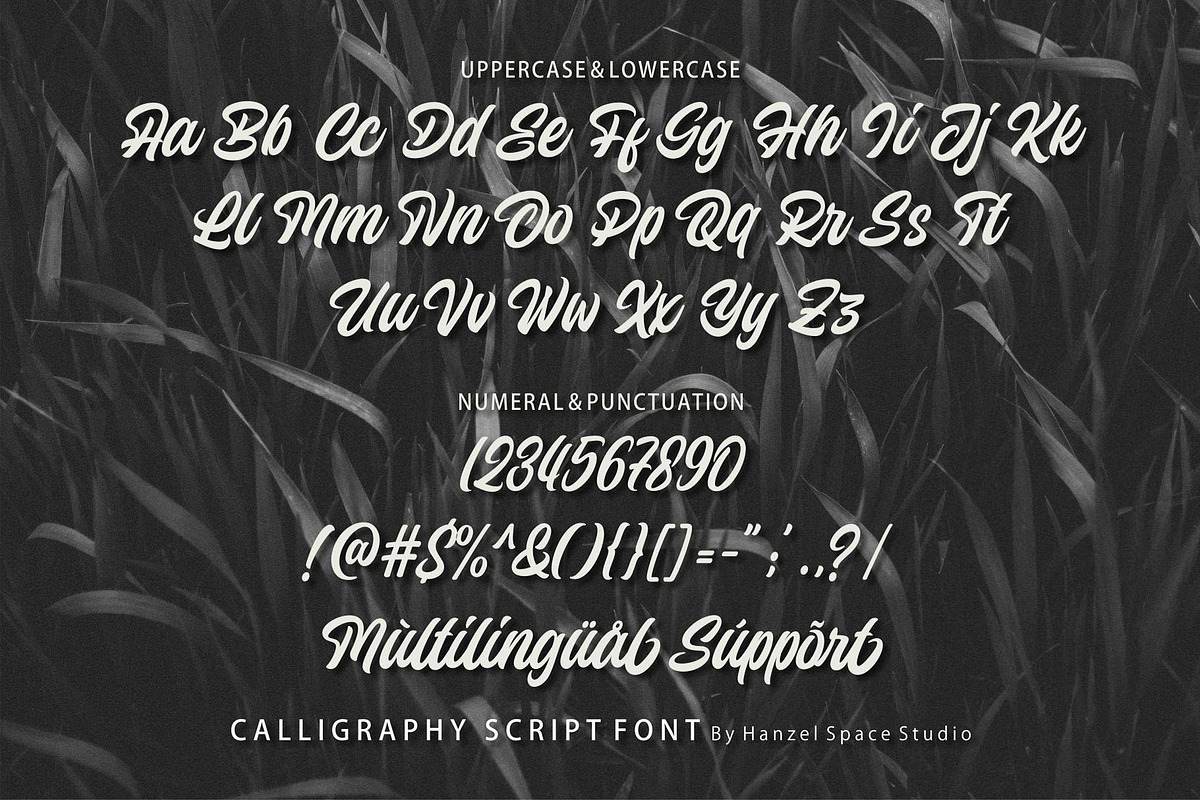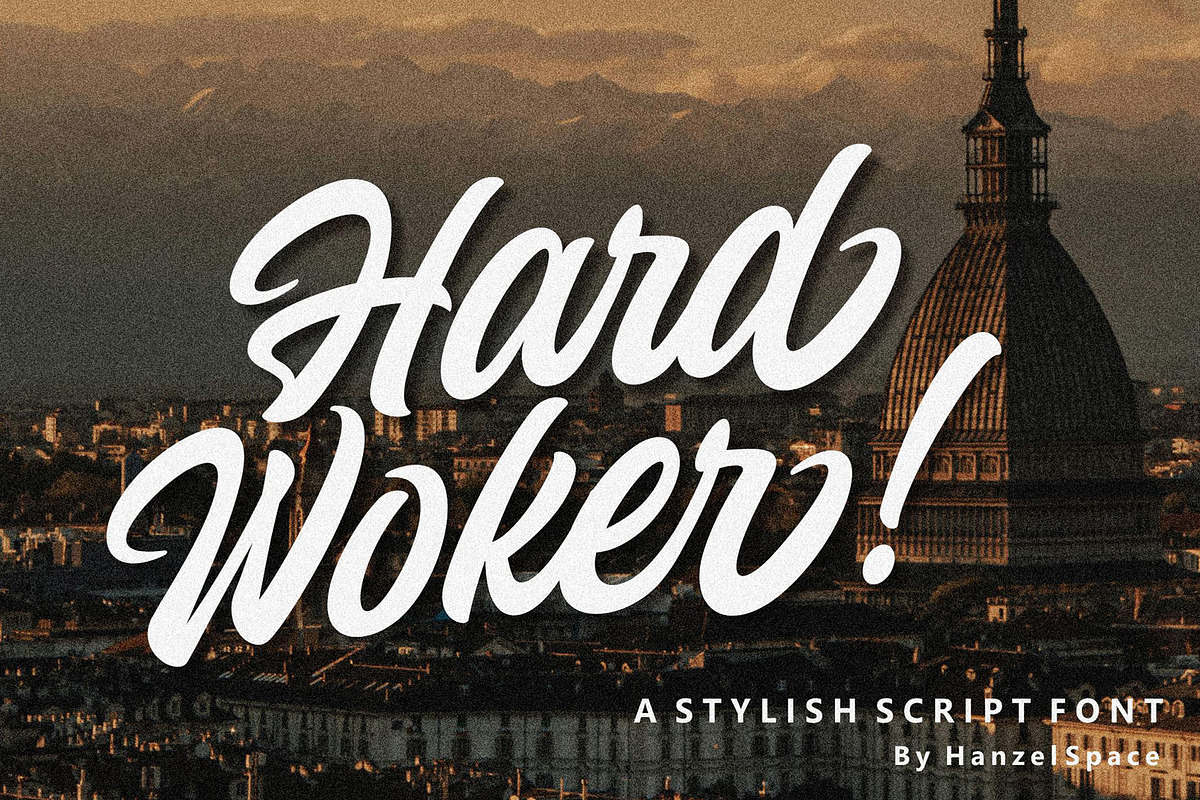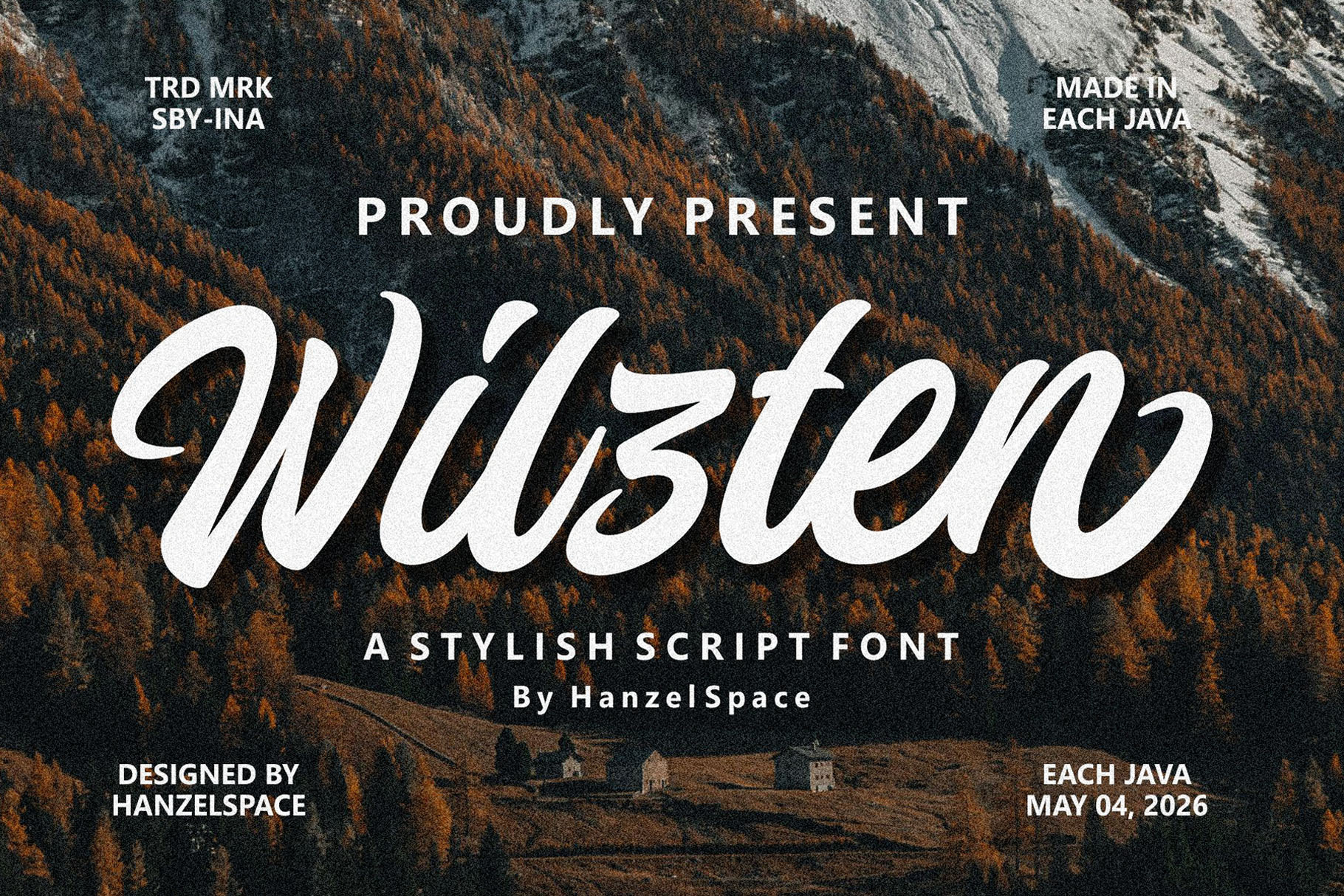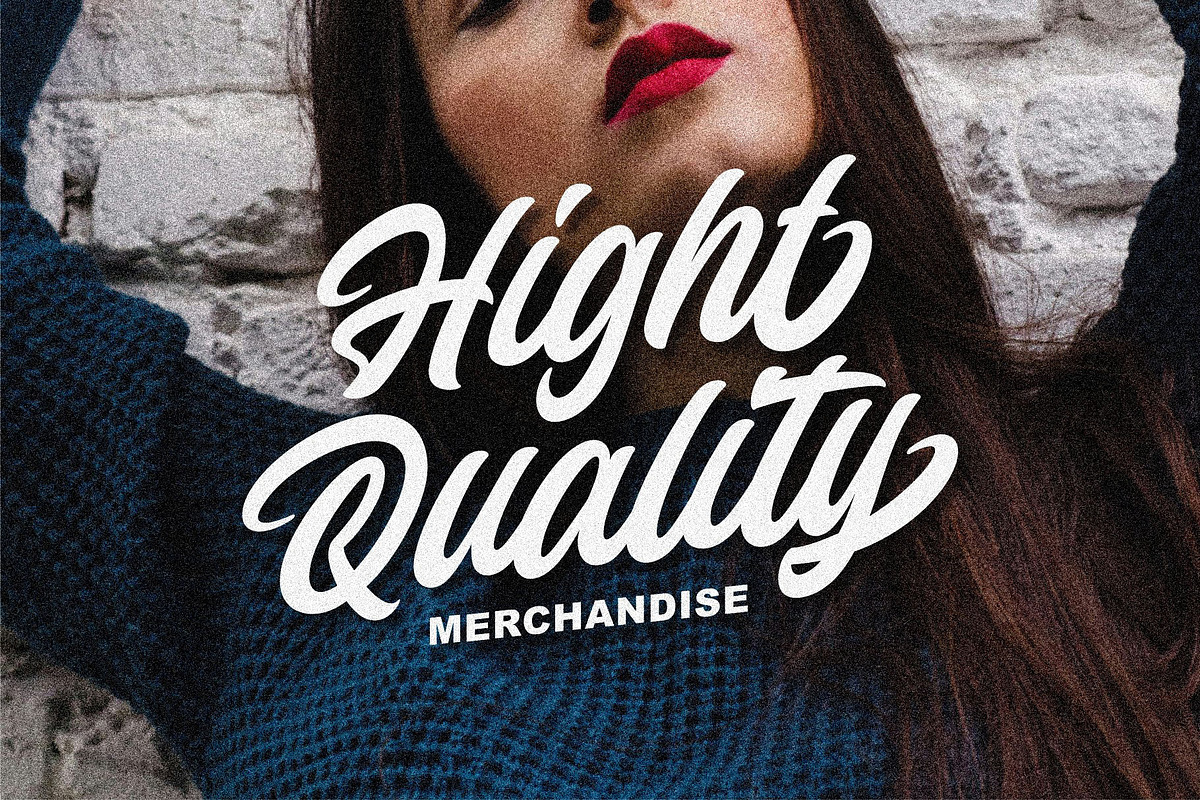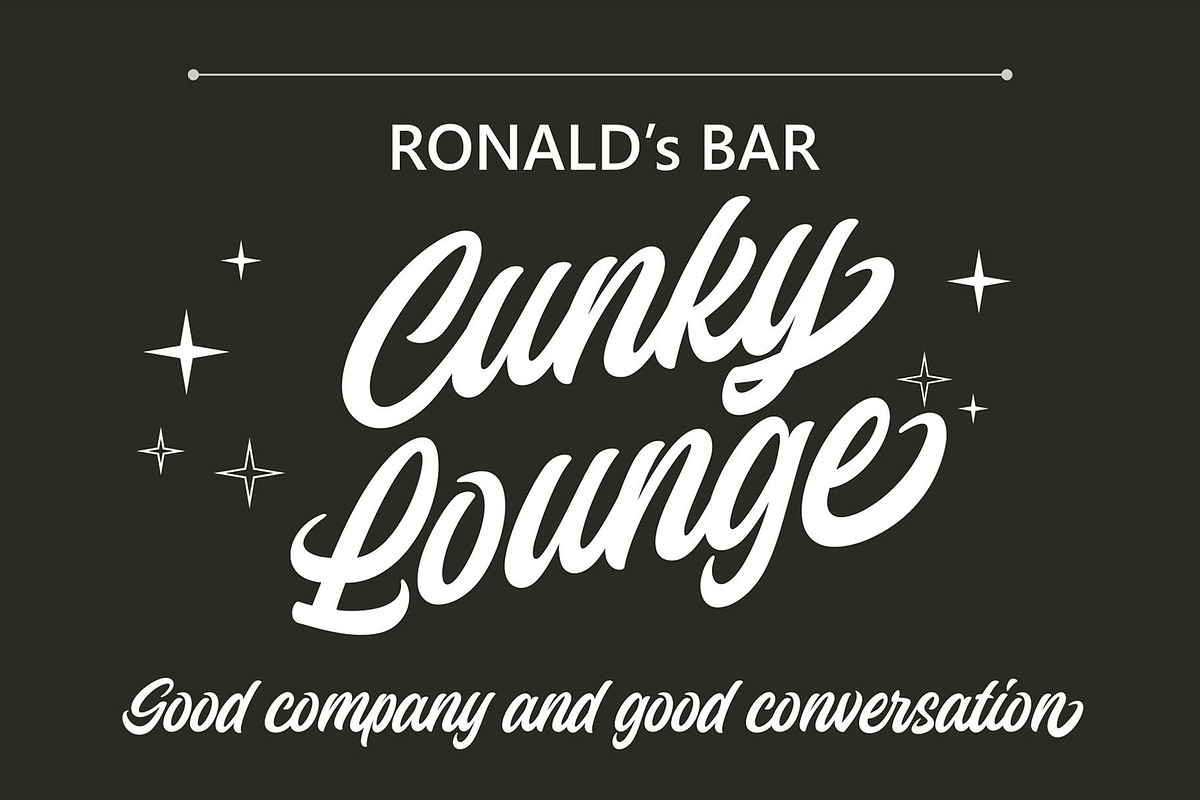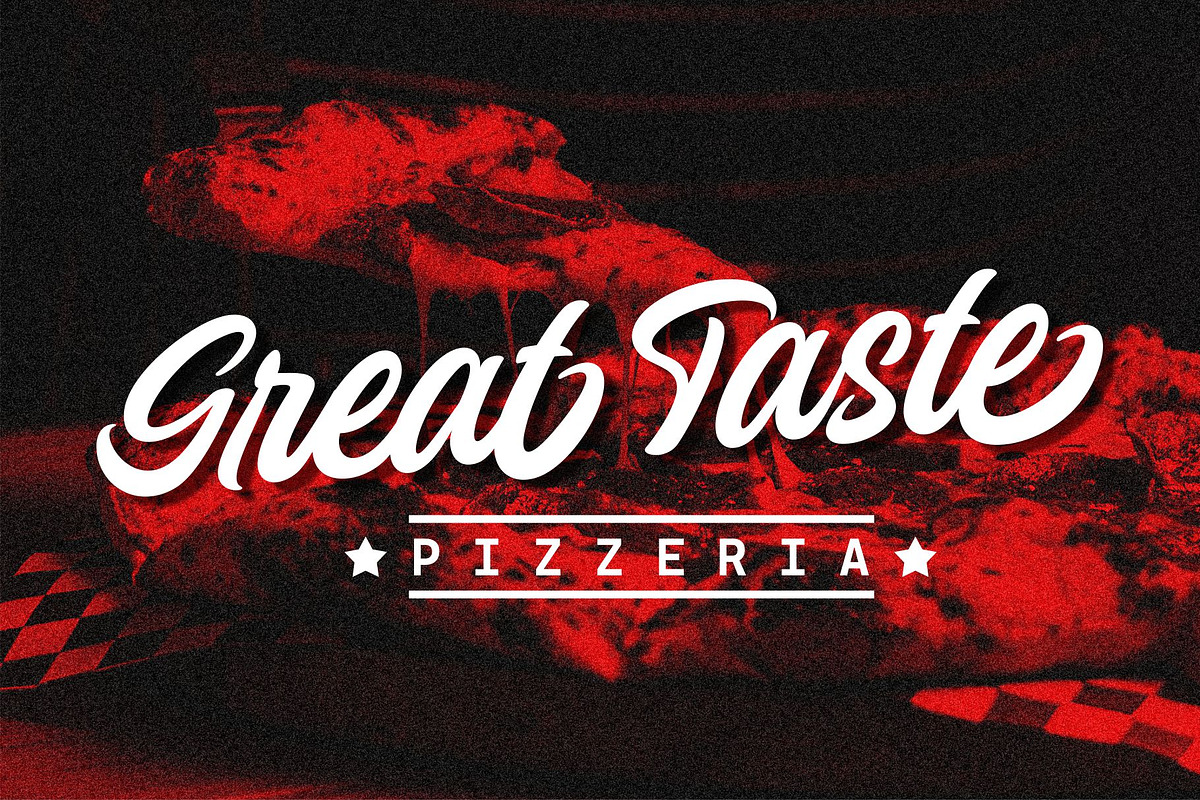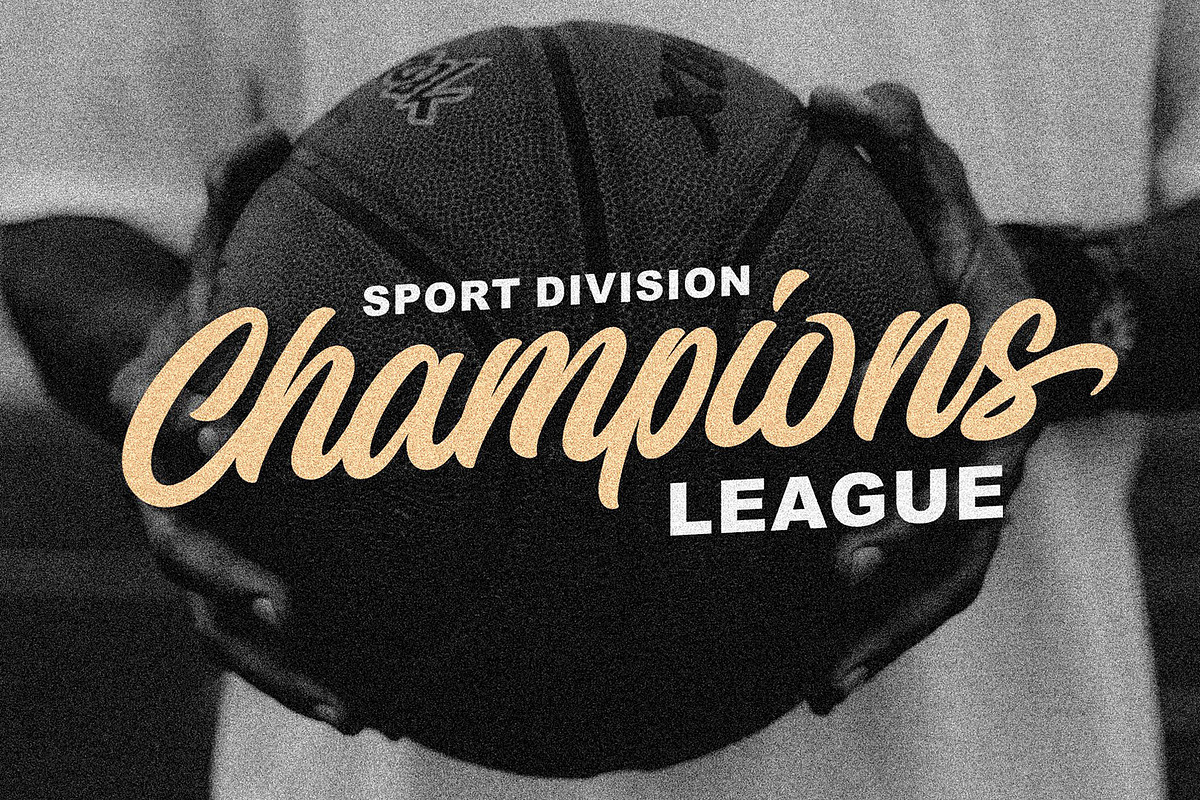
Wilzten – A Stylish Script Font
Introducing, Wilzten – A Stylish Script Font with is an amazing brush script font with a dynamic and energetic style.It can be used for various purposes such as titles, signatures, logotypes, t-shirt designs, letterheads, signage’s, labels, newsletters, posters, badges, and every other design which needs an unique, striking font.
Multilanguage Supports
Ending Swash – Stylistic Set